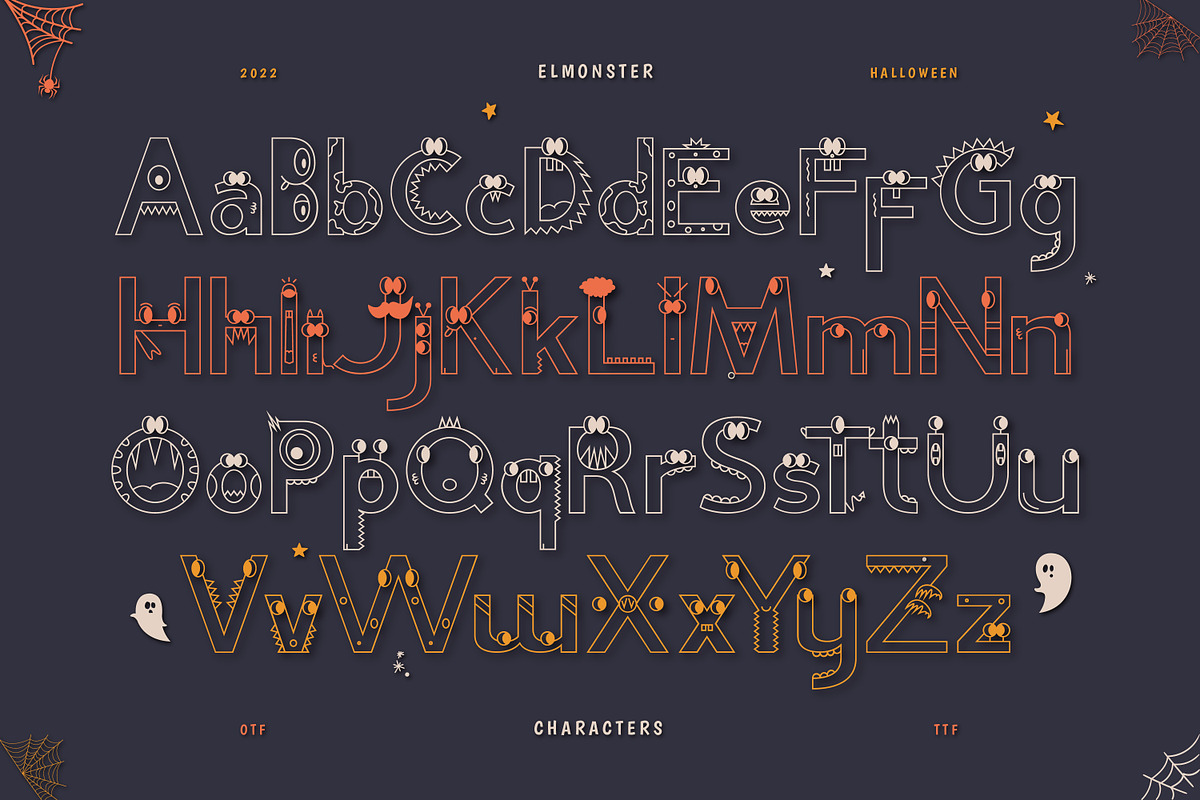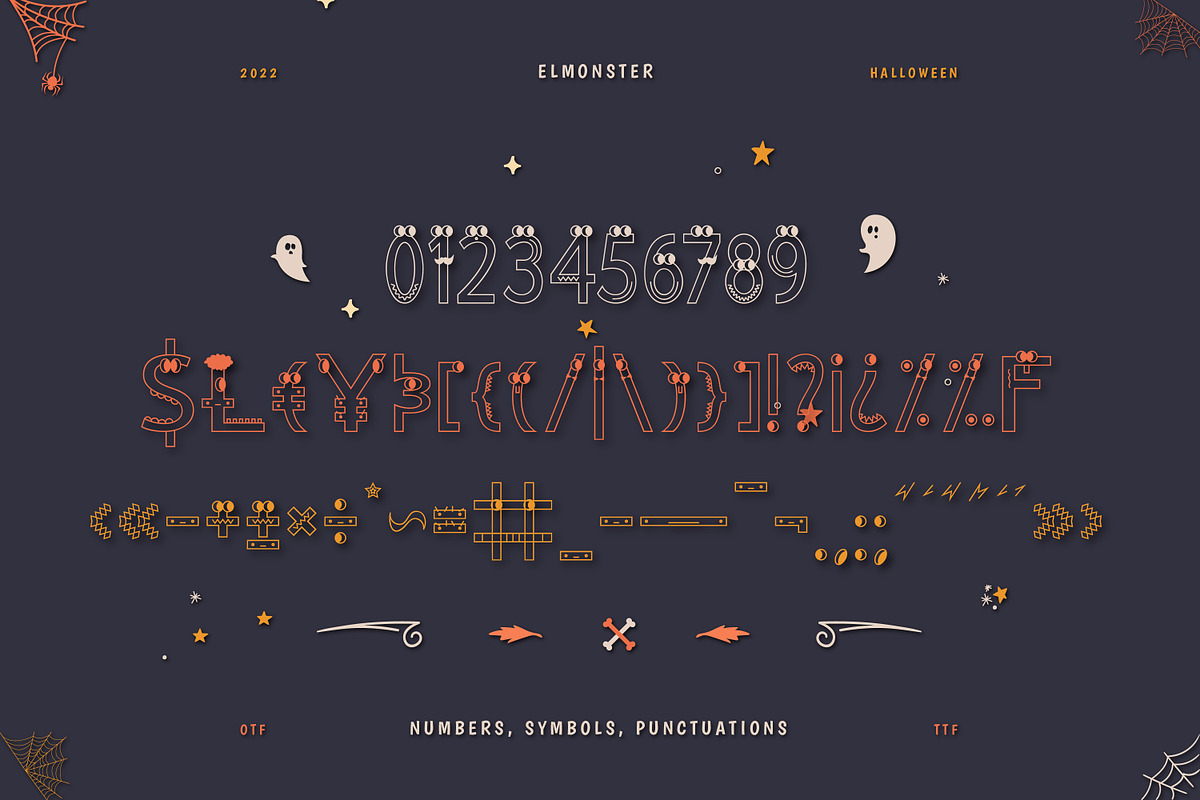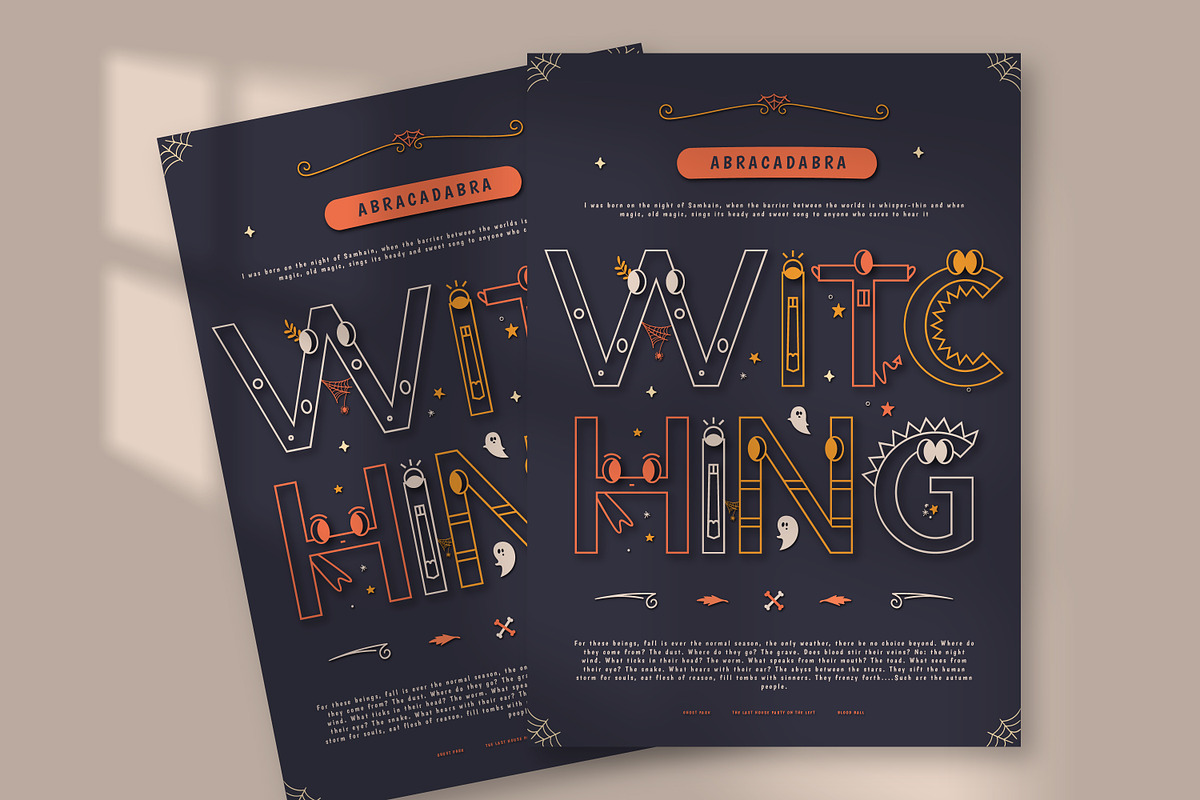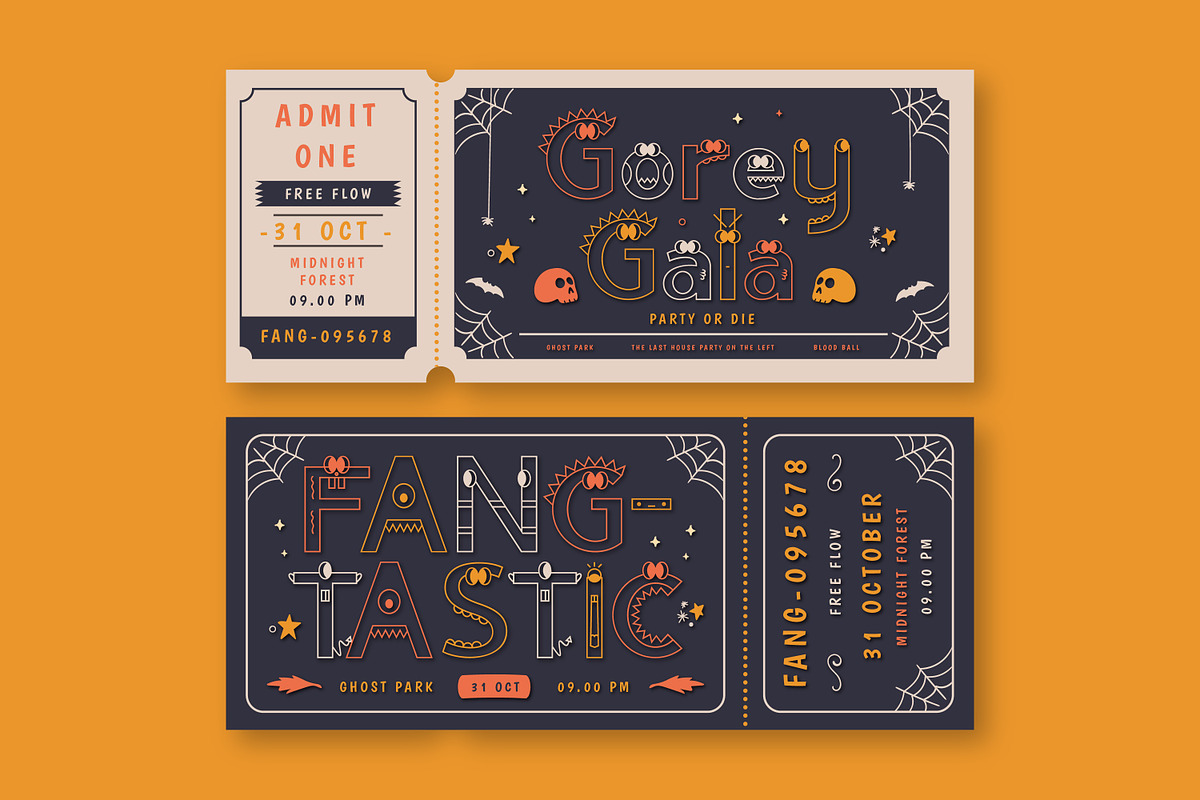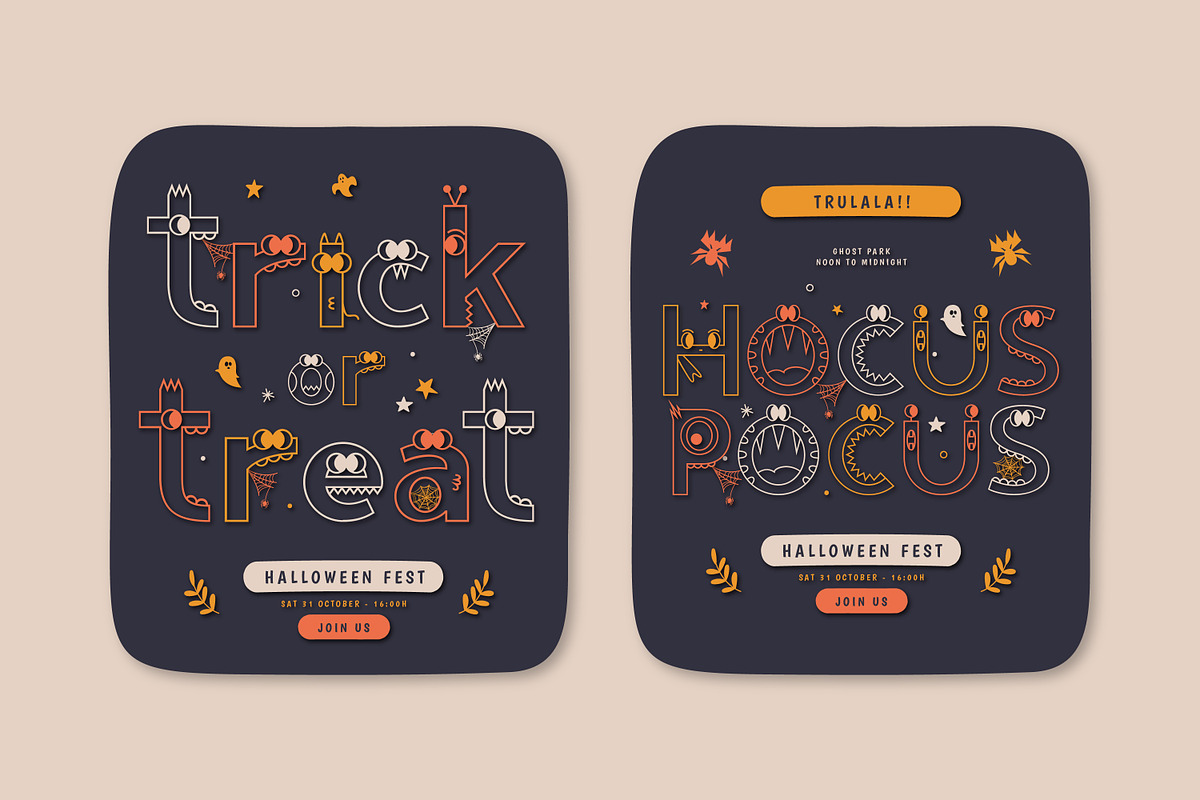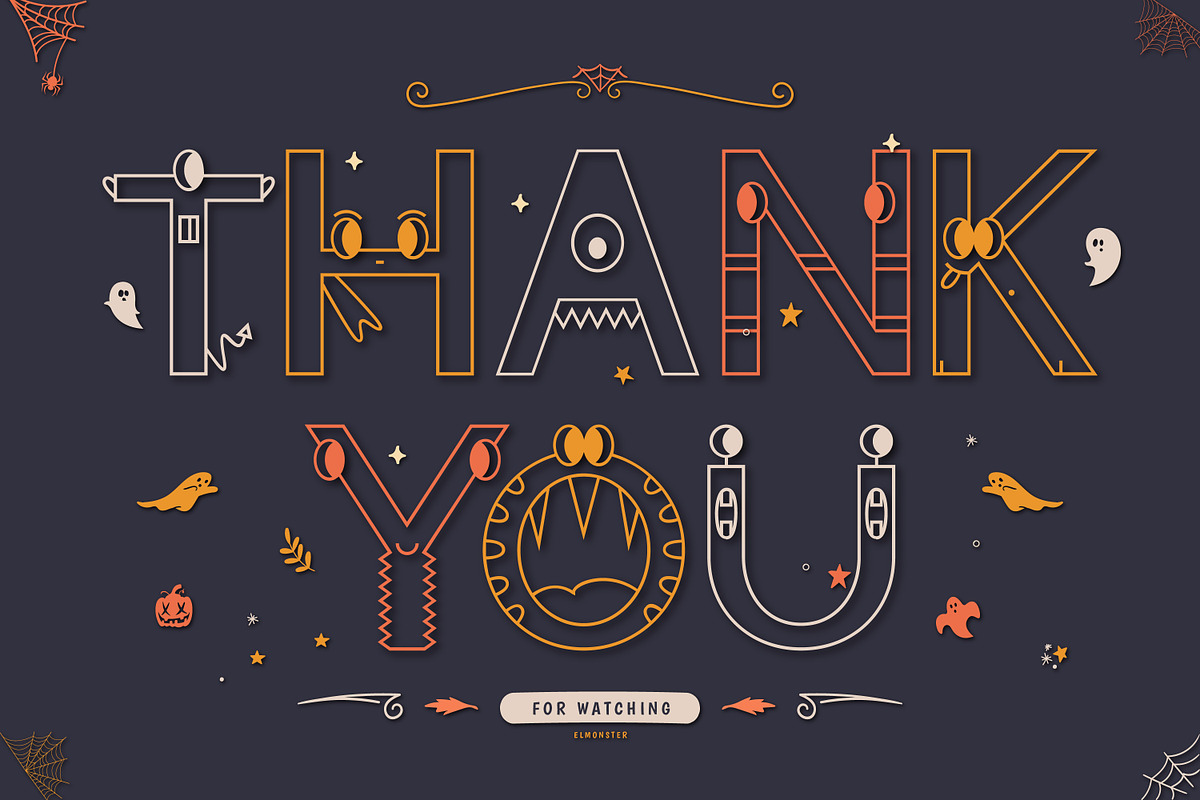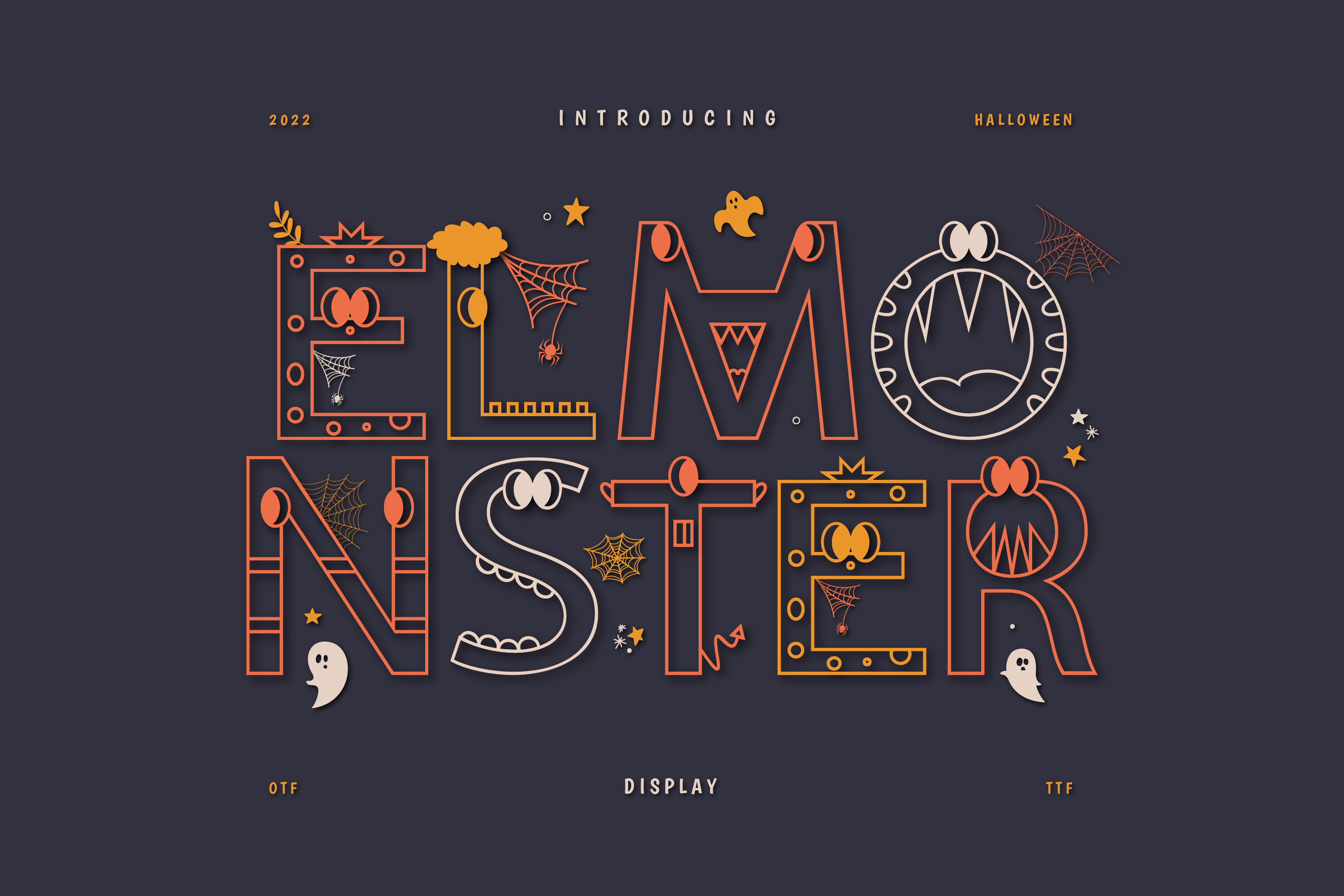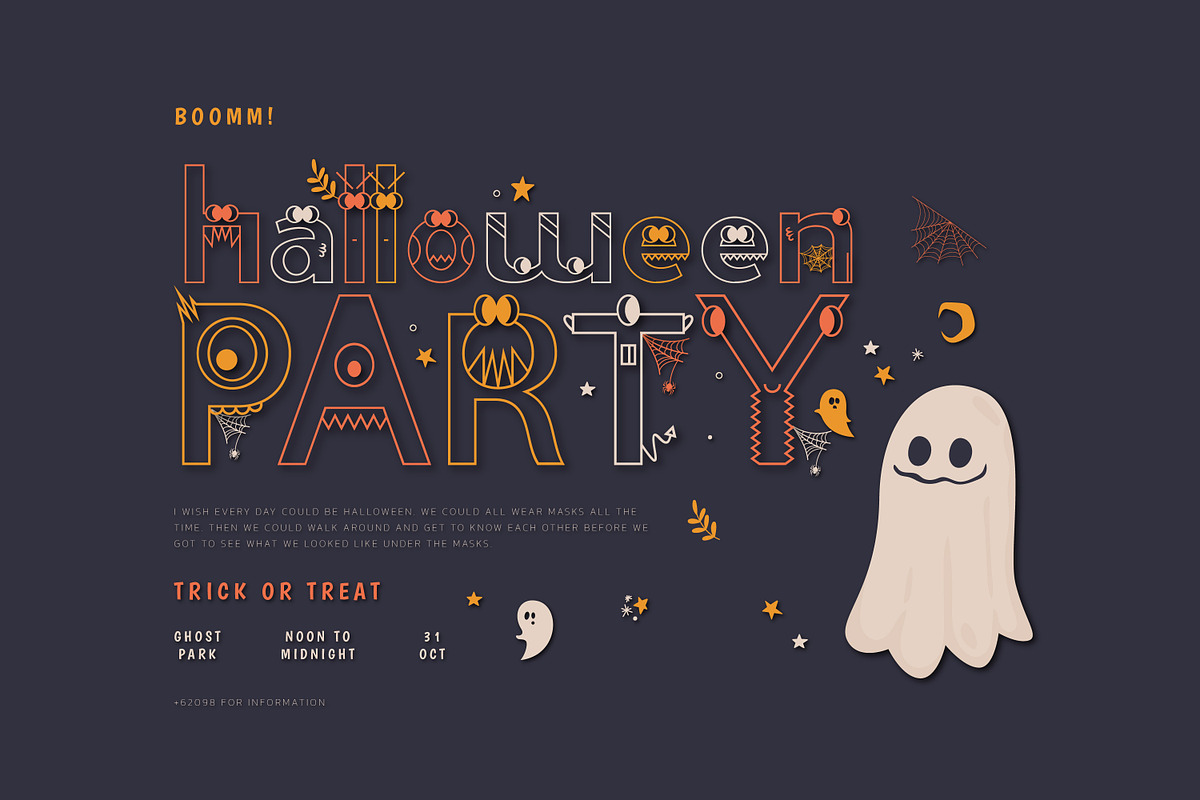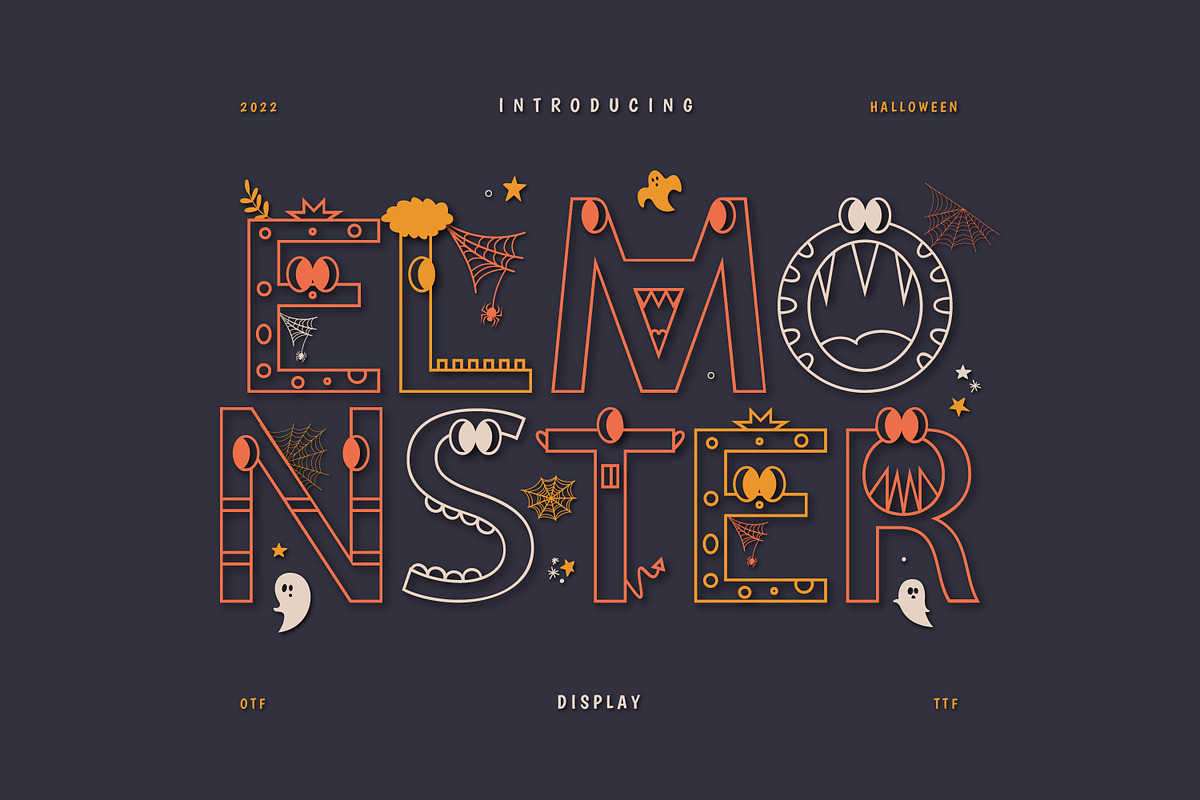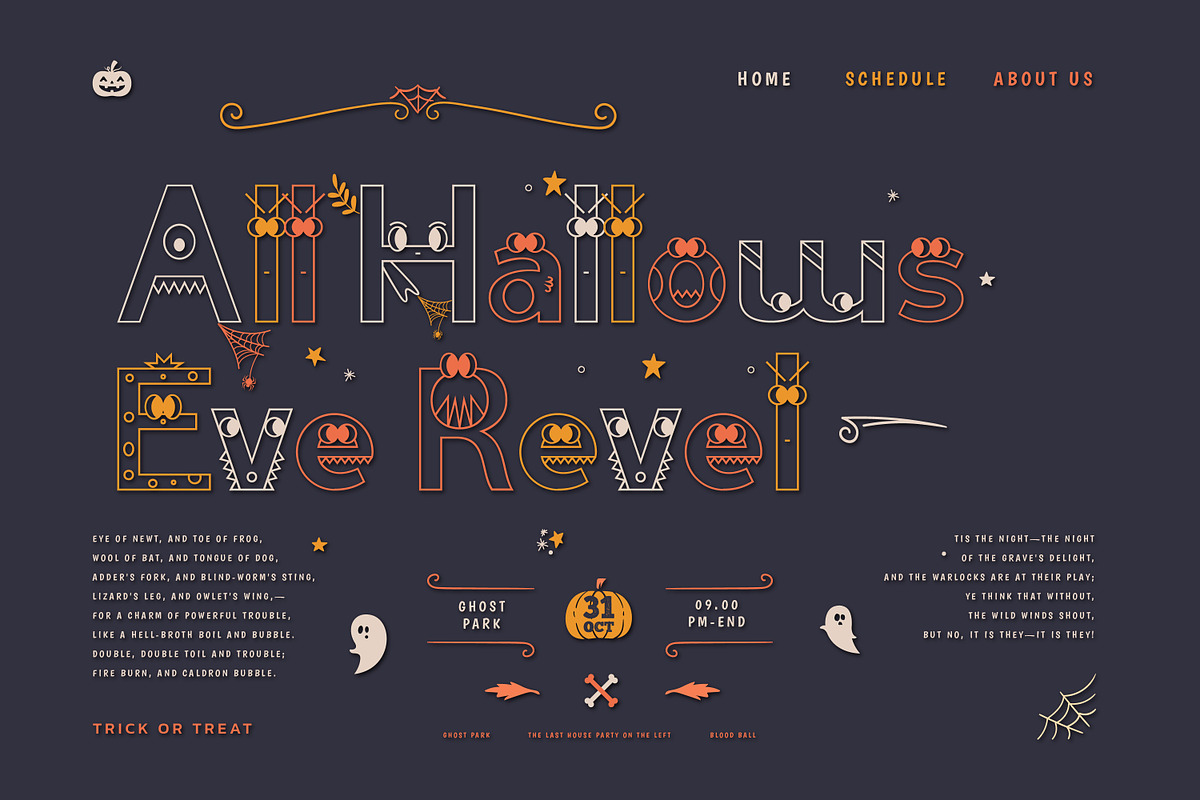
Elmonster Halloween Display Font
Elmonster is a cool and unique display font that will come in handy for all your Halloween projects. Due to its quirky and peculiar style, this typeface is guaranteed to help you amaze your audience through your creations!